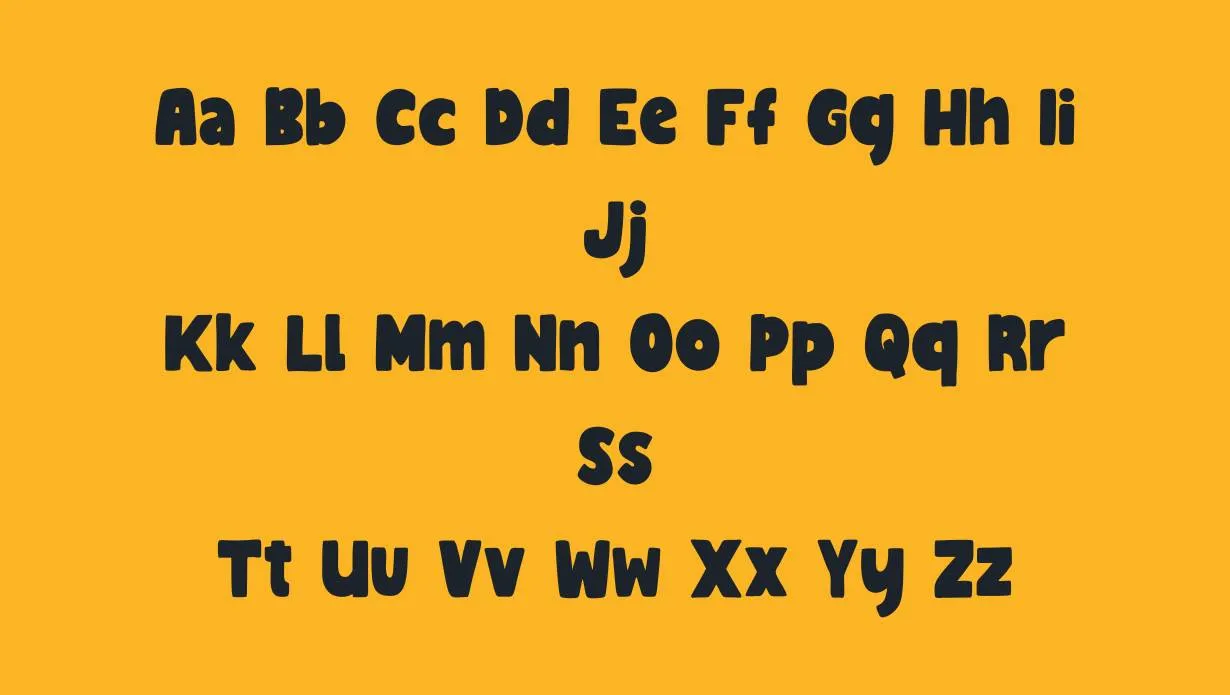
Minnio Font is a cartoon font. The typeface has been influenced by the classic typefaces of the late Renaissance. This typeface was fabricated by Kong Font Foundry in 2010.
The decorative style of the font will create a far-reaching impact on your personal projects. Each style of the typeface contains unique glyphs and swashes.
Designer | Kong font |
Style | Fancy |